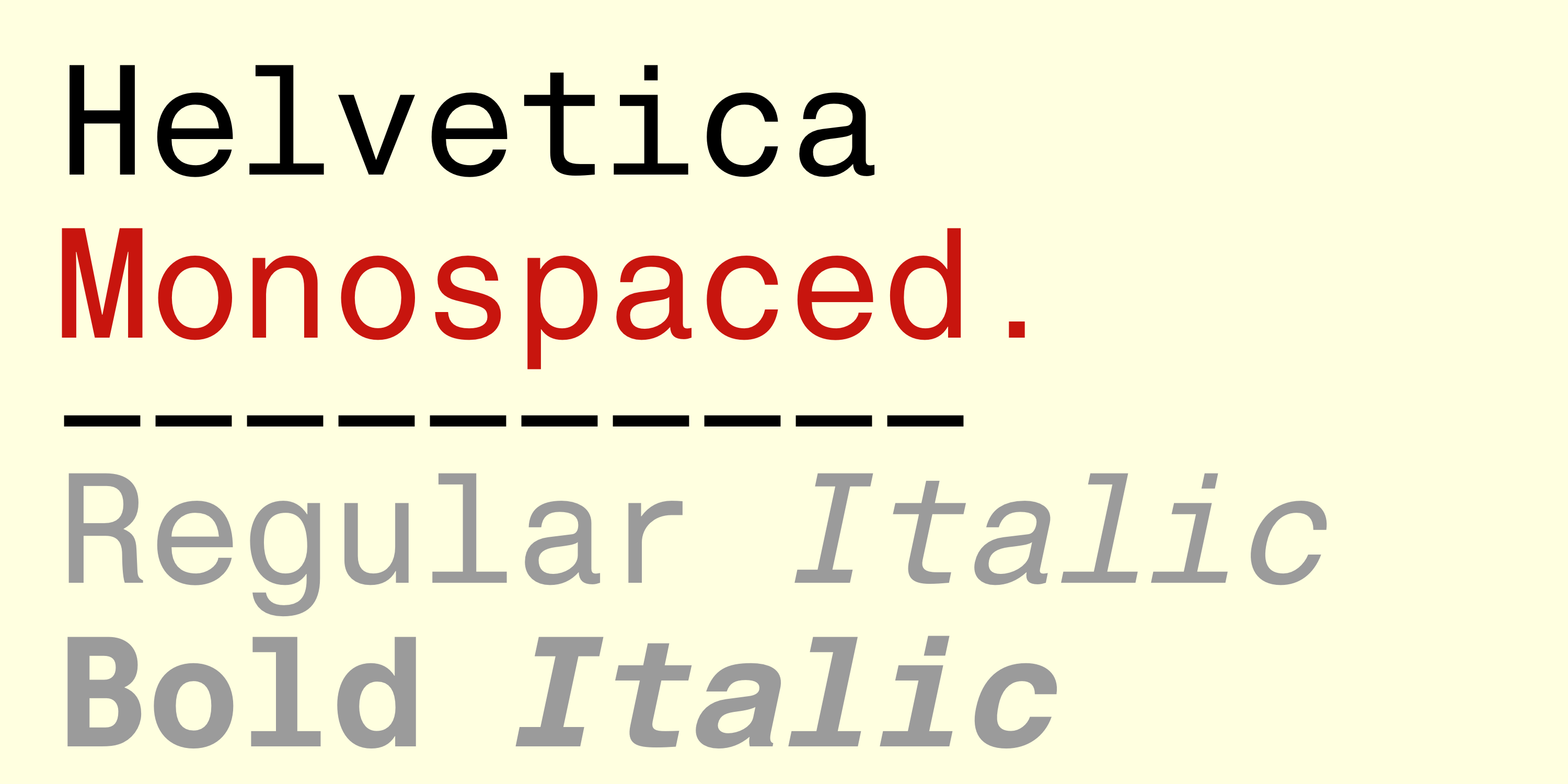
Helvetica Monospaced Font Free Download is a clean, modern, and highly legible monospaced typeface that brings the iconic Helvetica design into a functional and technical format. Ideal for coding, technical documentation, data tables, and digital interfaces, this font combines classic style with practical utility.
The monospaced nature ensures each character occupies the same horizontal space, which enhances readability in programming environments and precise text layouts. Helvetica Monospaced’s neutral and professional aesthetic makes it suitable for both corporate and creative projects.
Supporting multiple weights and styles, Helvetica Monospaced Font Free Download provides designers and developers with the flexibility to create cohesive typographic systems. It integrates seamlessly with popular software such as Adobe Creative Suite, Figma, Sketch, and coding environments.